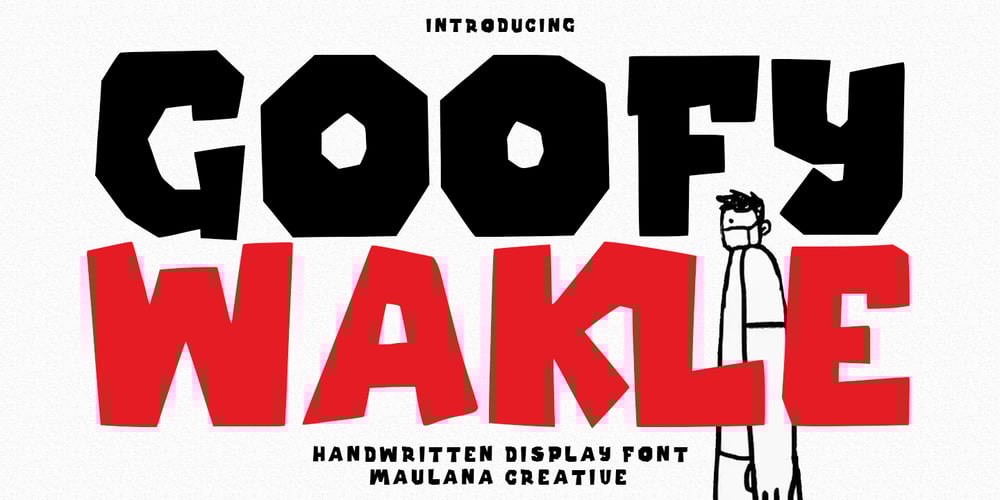
Goofy Wakle Font Family was designed by Gilang Maulana and published by Maulana Creative. Goofy Wakle contains 1 styles and family package options. Berthillas is an upright casual script font. With high contrast stroke, fun character. To give you an extra creative work. Berthillas font support multilingual more than 100+ language. This font is good for logo design, Social media, Movie Titles, Books Titles, a short text even a long text letter and good for your secondary text font with sans or serif. Make a stunning work with Berthillas font. Cheers, Maulana Creative